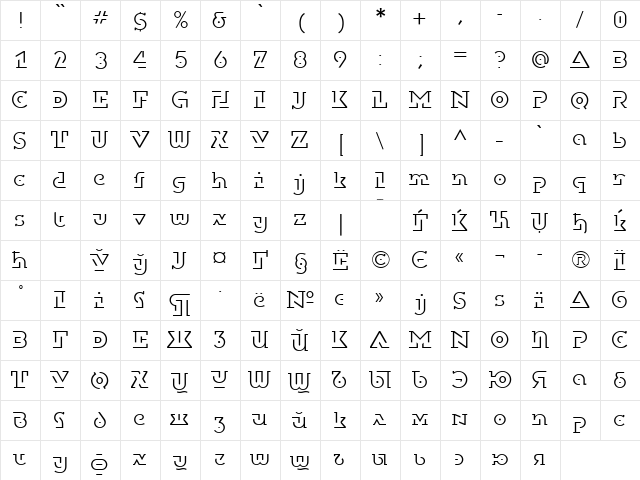
DublonBrusLightC Regular
Design Context for DublonBrusLightC Typeface
DublonBrusLightC takes a measured approach to typography — its balanced proportions and neutral character make it a reliable workhorse for both digital and print work. Its slender proportions lend an understated elegance to any composition.